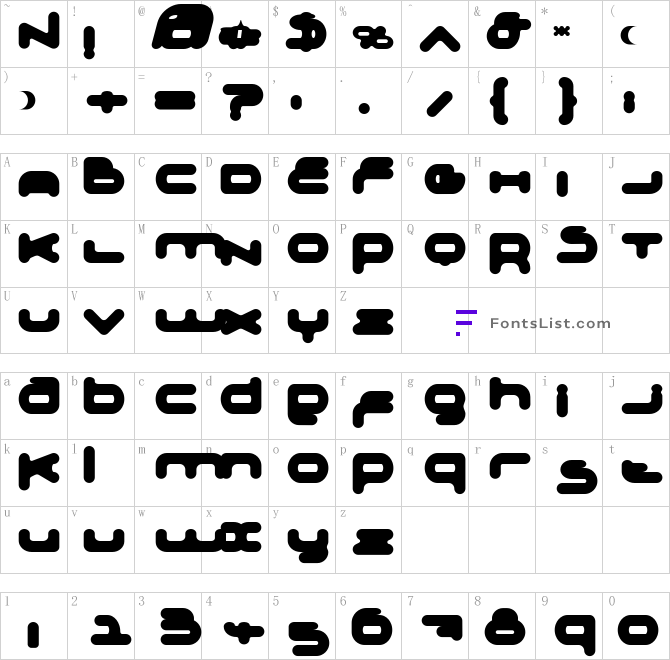
- Font Name:Adrenalin
- Full Name:Adrenalin-Bubble
Adrenalin-Bubble.ttf is a very beautiful artistic font, Adrenalin-Bubble.ttf is widely used in the design and printing of various books and pictures,Adrenalin-Bubble.ttf has a strong visual impact,Adrenalin-Bubble.ttf is a commonly used font in newspapers, magazines and books, and is used in posters, e-commerce Poster design, store design, logo design, font design and other fields.Adrenalin-Bubble.